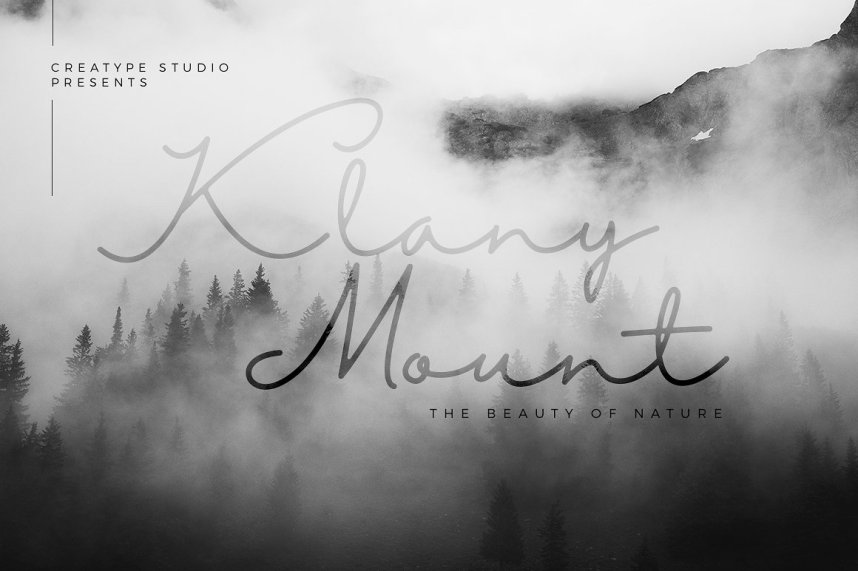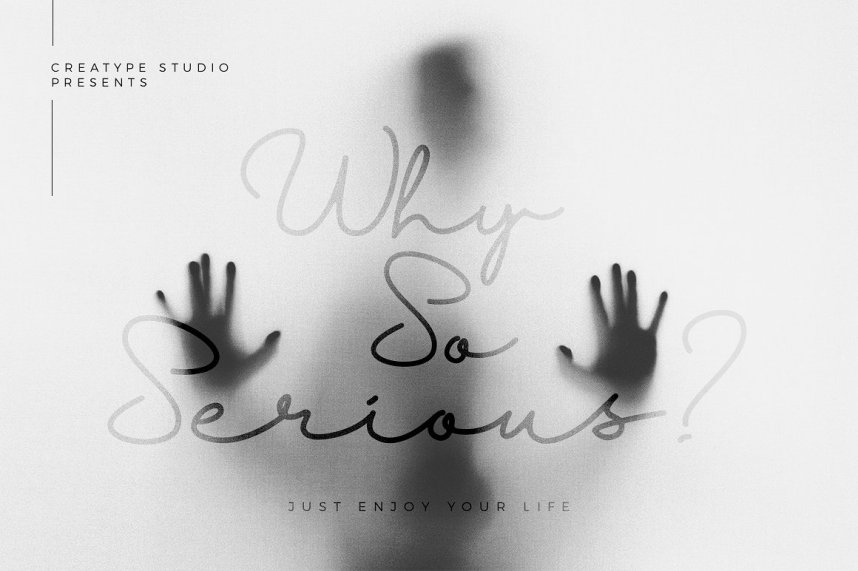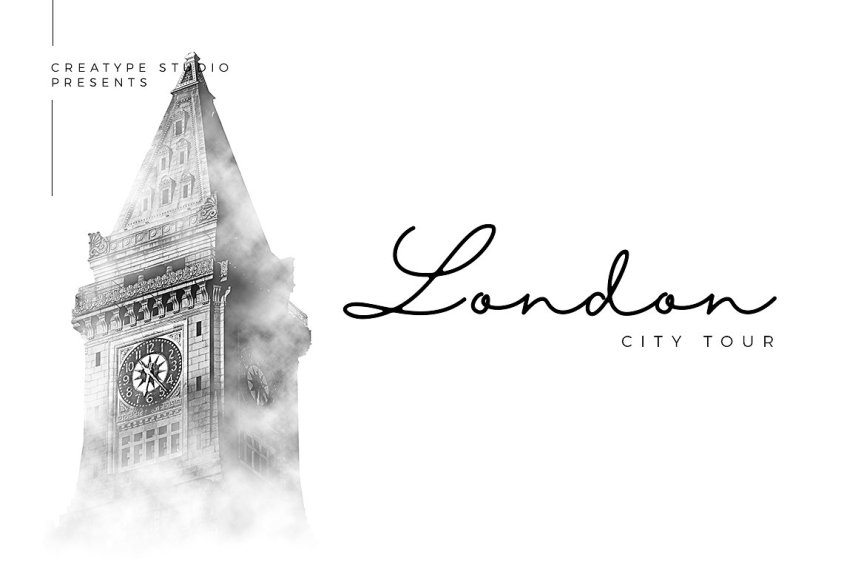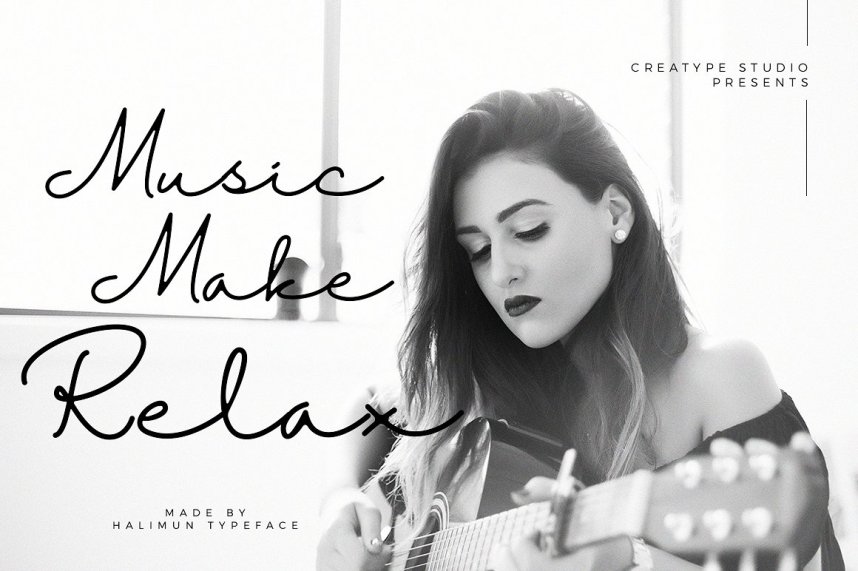
Halimun Script Style Font
Hello friend, Introducing Halimun, a stylish handwritten with signature style! It is was designed and shares by Creatype Studio Co. Halimun Script style – a new modern & fresh script with a handwritten and script style make this font looks elegant, natural, stylish and perfect for any awesome projects that need handwriting taste. Halimun would perfect for photography, watermark, social media posts, advertisements, logos & branding, invitation, product designs, label, stationery, wedding designs, product packaging, special events or anything that need handwriting taste.